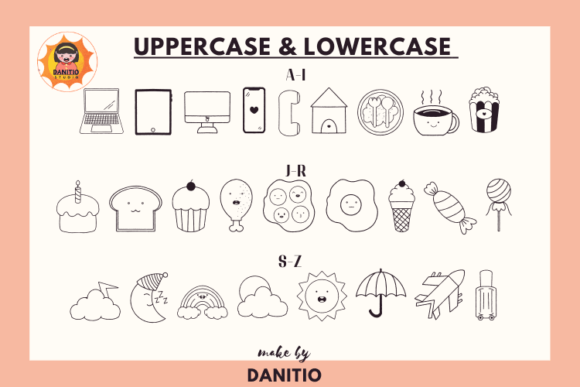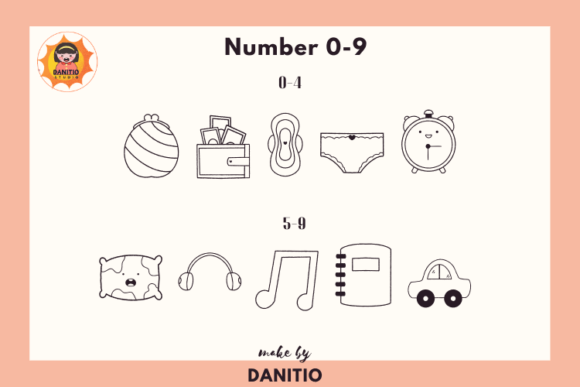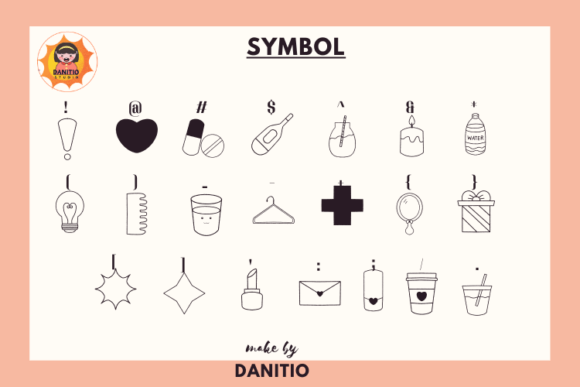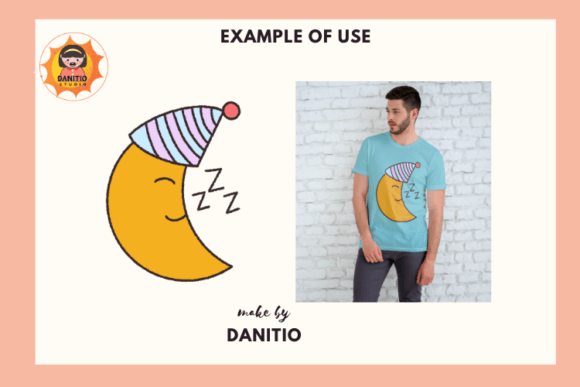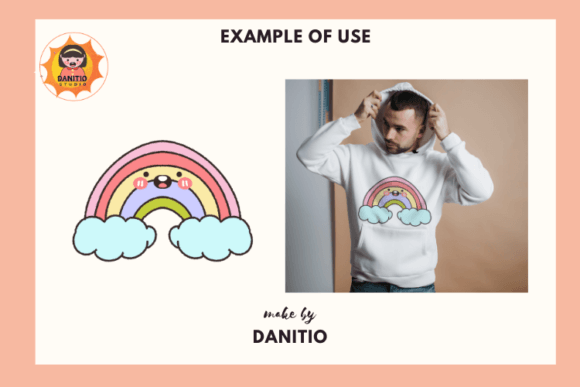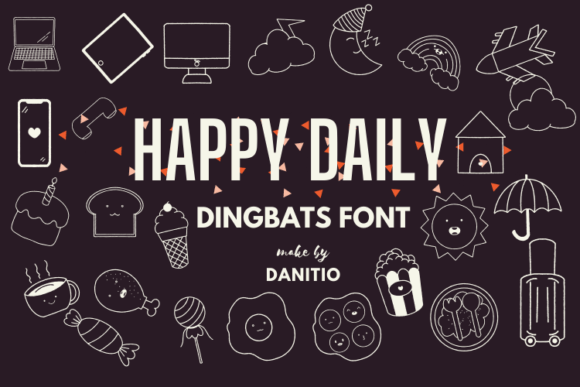
Introducing Happy Daily Font: The Perfect Companion for Your Creative Journey
Are you a crafter, graphic artist, or simply someone who loves to add a personal touch to your daily tasks? Look no further than the Happy Daily Font, a delightful dingbats font that’s sure to bring a smile to your face. In this article, we’ll explore the features and benefits of Happy Daily, and how it can elevate your creative projects.
What is Happy Daily Font?
Happy Daily is a unique dingbats font that’s designed to add a touch of whimsy and fun to your everyday tasks. Unlike traditional fonts, dingbats fonts feature graphical symbols, shapes, and icons instead of letters. Happy Daily is a carefully crafted collection of illustrations that can be used to decorate your planners, diaries, and other creative projects.
What Makes Happy Daily Font Special?
So, what sets Happy Daily apart from other fonts? Here are a few reasons why this font is a must-have for designers and crafters:
- Fun and Cute Storytelling: Happy Daily Font tells a story through its illustrations, making it perfect for adding a personal touch to your projects.
- Ideal for Everyday Tasks: Whether you’re creating a planner, diary, or to-do list, Happy Daily Font is the perfect companion to make your tasks more enjoyable.
- Crafter’s Delight: If you’re a crafter, you’ll love using Happy Daily Font to add a touch of personality to your projects, from t-shirts to cloth bags.
- Graphic Artist’s Dream: Graphic artists will appreciate the versatility of Happy Daily Font, which can be used to create stunning visual effects and illustrations.
How to Use Happy Daily Font?
The possibilities are endless with Happy Daily Font! Here are some ideas to get you started:
- Diary Writing: Add a touch of personality to your diary entries with Happy Daily Font.
- Decorating Planners: Use Happy Daily Font to create stunning planner layouts that are both functional and visually appealing.
- T-Shirts and Cloth Bags: Create custom apparel and accessories with Happy Daily Font.
- Stationery and Cards: Add a personal touch to your stationery and cards with Happy Daily Font.
Why Choose Happy Daily Font?
With so many fonts available, why choose Happy Daily? Here are a few reasons:
- Unique and Exclusive: Happy Daily Font is a one-of-a-kind dingbats font that’s sure to make your projects stand out.
- High-Quality Illustrations: Each illustration in Happy Daily Font is carefully crafted to ensure high-quality visuals.
In conclusion, Happy Daily Font is a versatile and fun dingbats font that’s perfect for designers, crafters, and anyone looking to add a personal touch to their everyday tasks. With its unique illustrations and ease of use, Happy Daily Font is sure to bring happiness and creativity to your projects. So why wait? Download Happy Daily Font today and start creating your own unique and personalized projects!